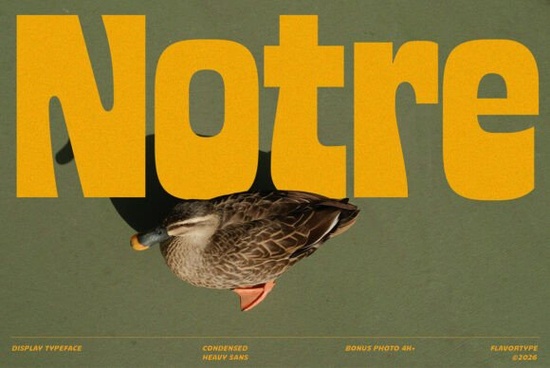
When it comes to making a statement with your designs, Notre Font is a fantastic choice. This bold condensed display typeface is designed to grab attention and add a touch of nostalgia with its vintage-inspired look. Whether you're working on a new branding project or creating eye-catching social media graphics, Notre Font can help you achieve that impactful, memorable look.
What Makes Notre Font Stand Out?
Notre Font is a unique blend of strong vertical forms, tight spacing, and playful curves. These elements combine to create a typeface that feels both nostalgic and fresh. Inspired by vintage signage and classic advertising, Notre Font brings a sense of history and character to your designs while still feeling modern and relevant.
Where Can You Use Notre Font?
Notre Font is incredibly versatile and can be used in a wide range of design projects. Here are some of the most common applications:
- Headlines and Posters: The bold, condensed nature of Notre Font makes it perfect for headlines and posters where impact is key.
- Packaging Design: Its compact proportions allow for large amounts of text to fit comfortably, making it ideal for packaging labels and boxes.
- Café Branding: The font's warm, handcrafted charm works well for café menus, signage, and promotional materials.
- Social Media Graphics: Notre Font can help your social media posts stand out with its striking visual presence.
- Editorial Layouts: Use Notre Font for magazine titles, section headers, and other editorial elements to add a touch of personality.
Why Choose Notre Font for Your Next Project?
One of the standout features of Notre Font is its ability to balance boldness with a friendly, approachable feel. The rounded corners and expressive details soften its structure, giving it a warmth and personality that can make your designs more engaging. Whether you're creating a bakery brand, a retro-inspired poster, or a lifestyle campaign, Notre Font can help you turn simple messages into memorable statements.
How Does Notre Font Compare to Other Display Fonts?
Tips for Using Notre Font Effectively
To get the most out of Notre Font, here are a few tips:
- Use It Sparingly: As a bold, condensed font, Notre Font can be overwhelming if overused. Use it for key elements like headlines and titles, and pair it with a more neutral font for body text.
- Play with Spacing: Experiment with the spacing between letters and lines to find the right balance for your design. Tighter spacing can create a more compact, impactful look, while looser spacing can make the text more readable.
- Test on Different Backgrounds: Make sure to test Notre Font on different backgrounds to ensure it remains legible and visually appealing. Lighter backgrounds can help the bold, dark letters stand out, while darker backgrounds can create a more dramatic effect.